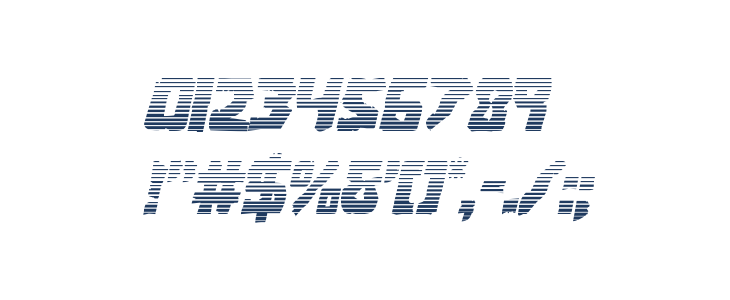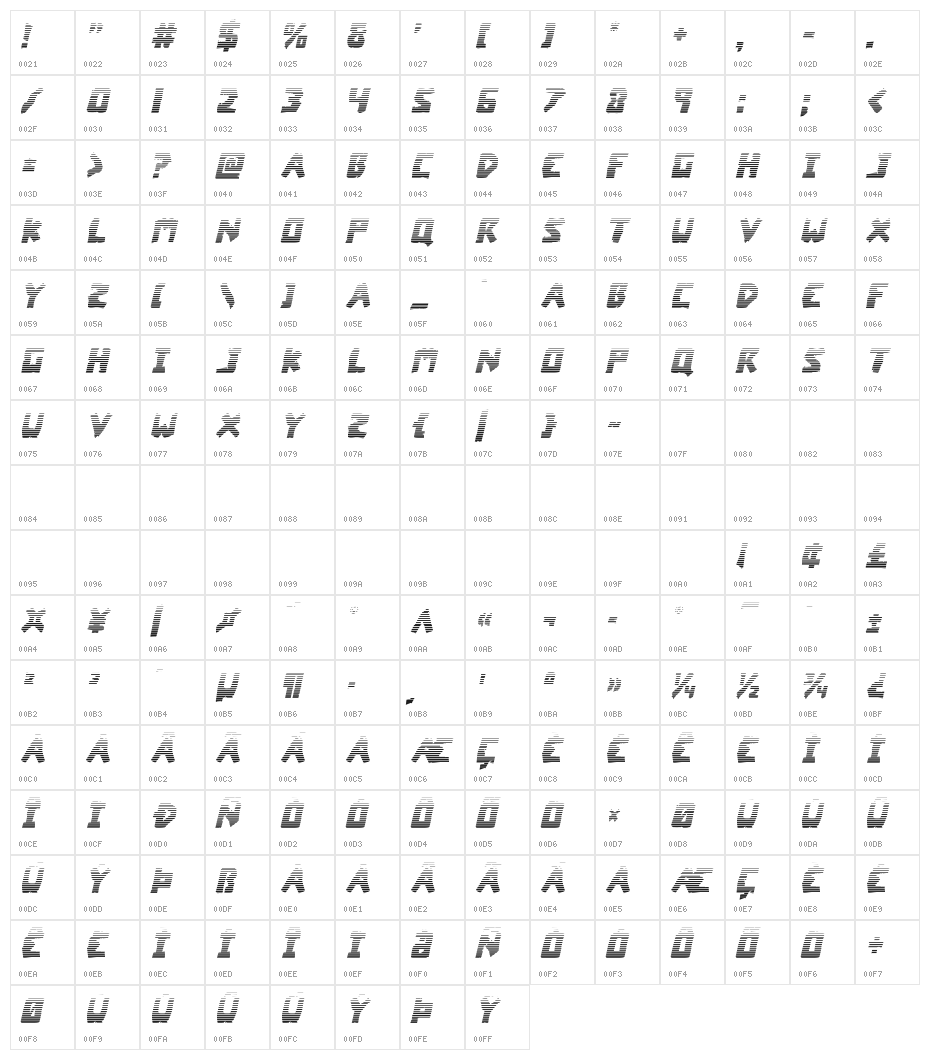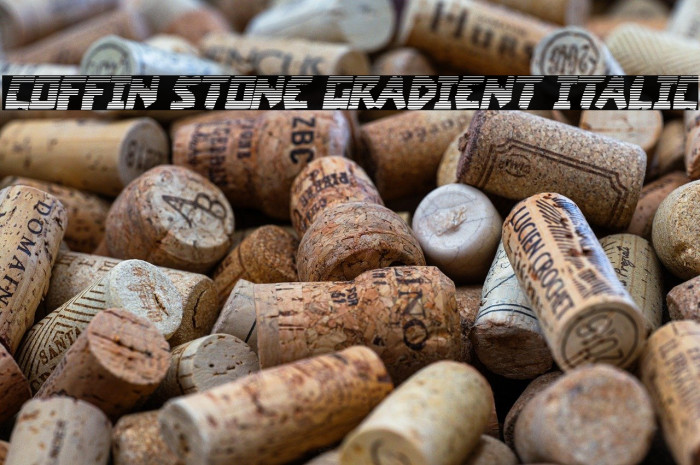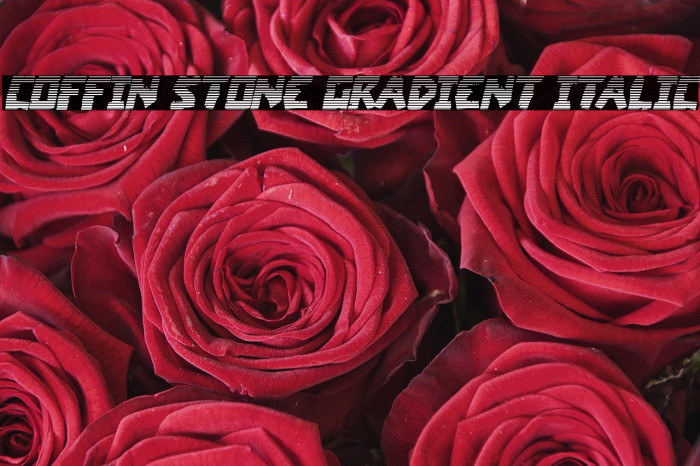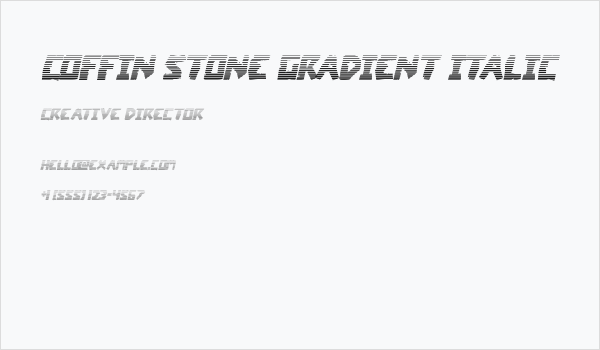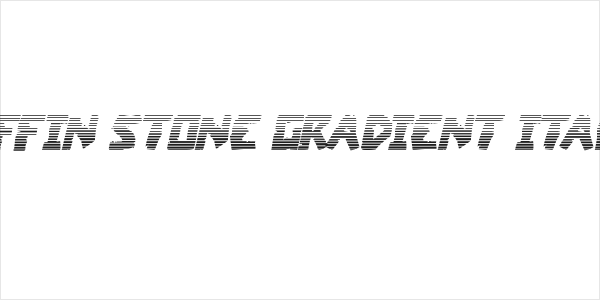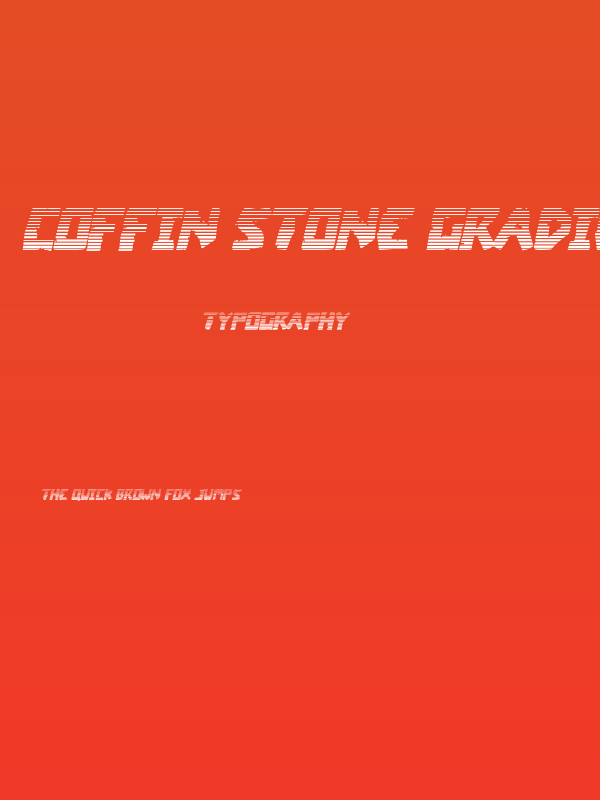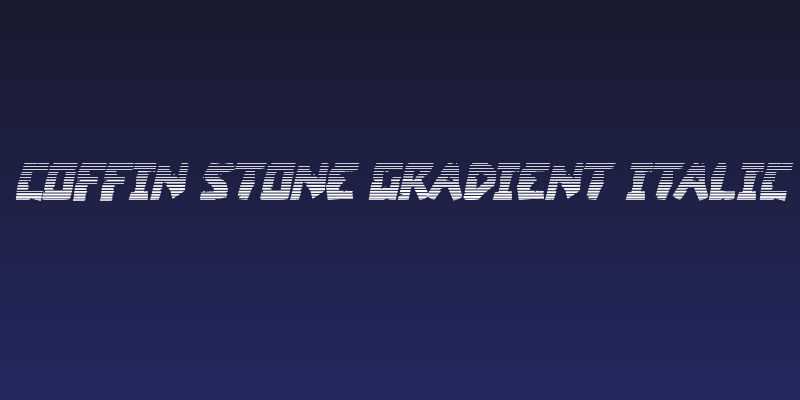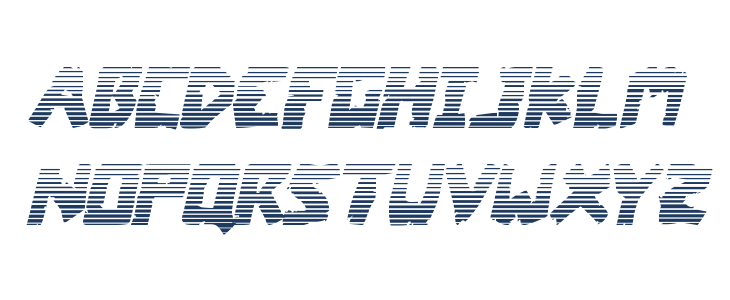
Coffin Stone Gradient Italic Font
Coffin Stone Gradient Italic Description
This font features a bold, italicized style with a unique gradient effect created by horizontal lines running through each character. The design gives a sense of movement and modernity, making it stand out in any context. The uppercase and lowercase letters maintain a consistent style, with sharp angles and a slightly condensed form. Numbers and special characters are equally bold and dynamic, ensuring a cohesive look across all text elements. The font's distinct appearance makes it ideal for projects that require a contemporary and edgy aesthetic.
Proposed ProjectsIdeal for branding, posters, album covers, and any project needing a modern, edgy look.